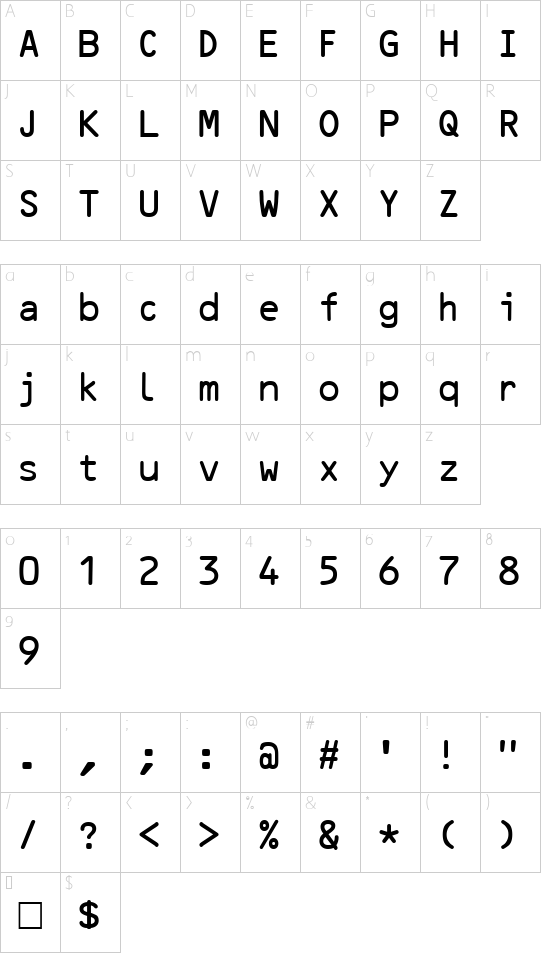
Ocrb Font Download - Web explore ocr b designed by adrian frutiger at adobe fonts. A monospaced typeface with 1 style, available from adobe fonts for sync.
Web explore ocr b designed by adrian frutiger at adobe fonts. A monospaced typeface with 1 style, available from adobe fonts for sync.
A monospaced typeface with 1 style, available from adobe fonts for sync. Web explore ocr b designed by adrian frutiger at adobe fonts.
OCRB Font
A monospaced typeface with 1 style, available from adobe fonts for sync. Web explore ocr b designed by adrian frutiger at adobe fonts.
Web explore ocr b designed by adrian frutiger at adobe fonts.